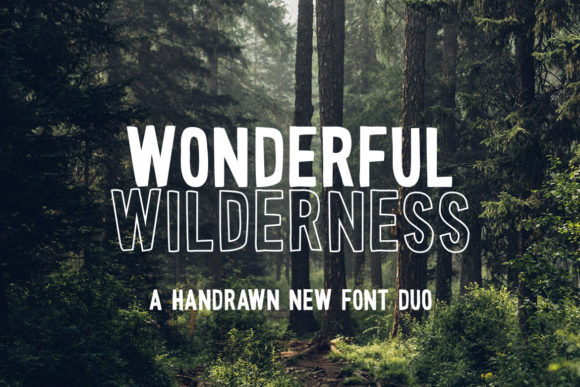
Wonderful Wilderness Font
Journey into the heart of nature with Wonderful Wilderness Font, a display font that encapsulates the raw beauty and untamed spirit of the great outdoors. Created by the renowned Salt and Pepper Fonts, this font carries the essence of rugged wilderness, inviting you to explore uncharted creative territories.
With its bold and authentic strokes, Wonderful Wilderness Font captures the essence of towering trees, meandering rivers, and majestic mountain peaks. It's the perfect font for designers, artists, and creatives seeking to evoke a sense of awe and wonder in their projects.
But what truly sets Wonderful Wilderness Font apart is its versatility. Its dynamic character lends itself effortlessly to a wide spectrum of design applications, from captivating logos and branding materials to eye-catching posters and social media graphics. Its natural charm adds a touch of authenticity to invitations, wedding stationery, and even product packaging.
Whether you're crafting a rustic and earthy design or seeking a font that embodies the rugged beauty of the wild, Wonderful Wilderness Font delivers. Its ability to effortlessly convey a sense of adventure and exploration makes it the ideal choice for projects that demand a connection with the natural world.
Don't miss the opportunity to unleash your creativity and embark on a journey of visual storytelling with Wonderful Wilderness Font. Its bold spirit and enchanting beauty are sure to leave an enduring impact on your audience.